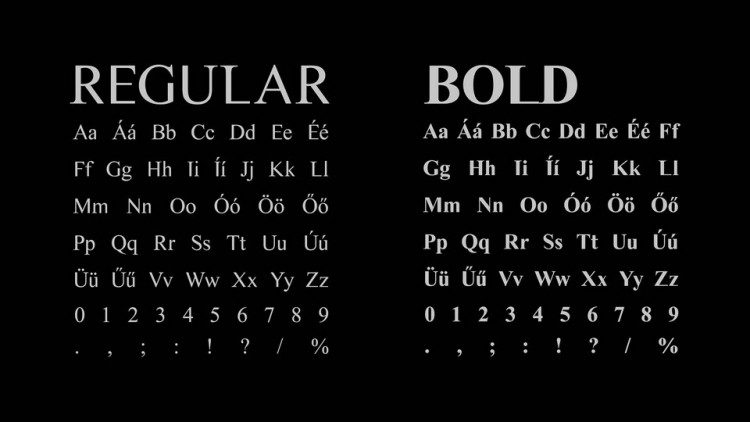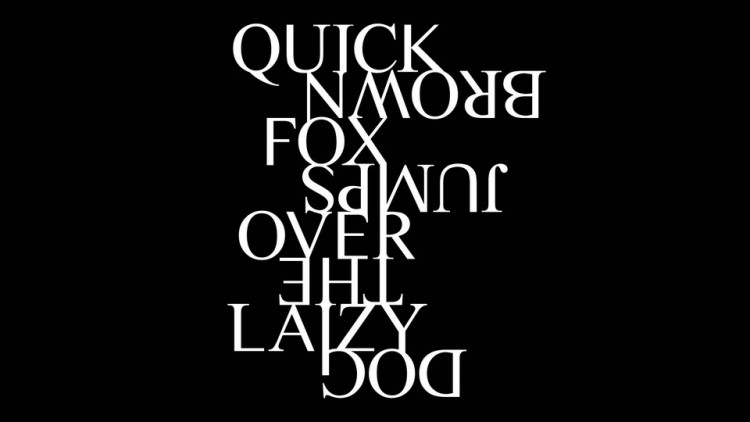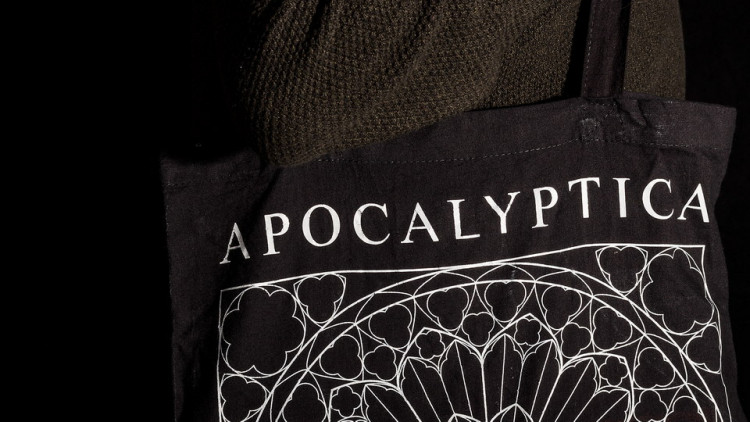
Sometimes Display Font
This is demi-serif display fonts that have a strong and elegant appearance. Made from font designer named Balázs Szemmelroth. It was created by cutting some serifs off form the TNR. The new typeface has classical and modern look at the same time.